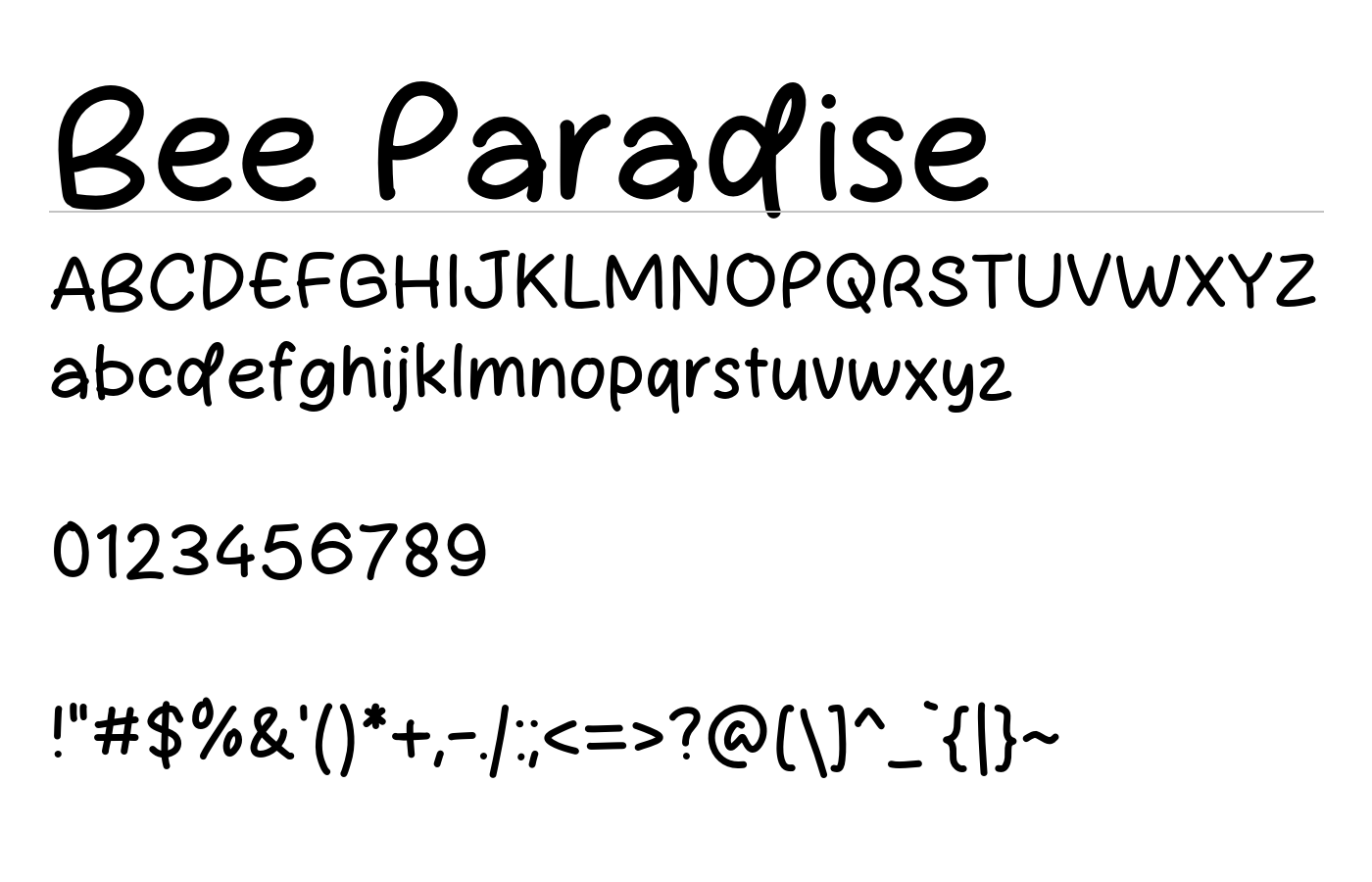
Bee Paradise is a casual, handwritten sans serif font with a friendly and playful character, featuring smooth, rounded strokes and moderate spacing that makes it approachable and easy to read. Its irregular, informal letter shapes give it a warm, personal touch, making it ideal for projects that want to convey a lighthearted and creative vibe, such as greeting cards, children’s books, or casual branding. This font works best in headlines, logos, or any design needing a fun, welcoming personality.
Bee Paradise Font
About Bee Paradise Font